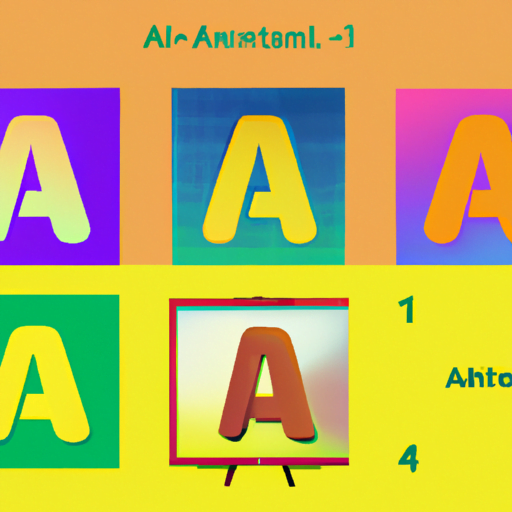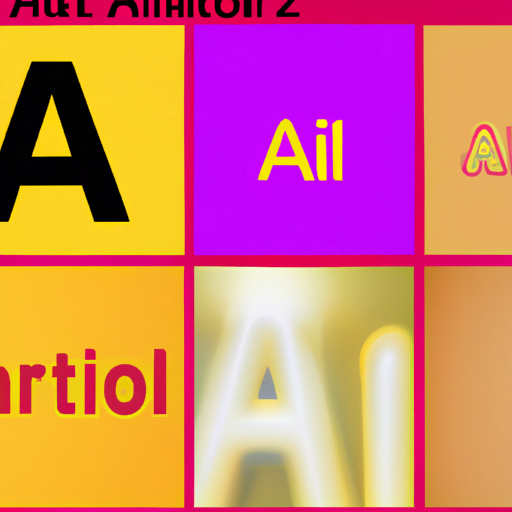
AI in Typeface Design: Custom Fonts for Unique Branding
Typography plays a crucial role in branding and design. The right typeface can evoke emotions, convey a brand's personality, and create a memorable visual identity. In recent years, artificial intelligence (AI) has revolutionized the field of typeface design, enabling designers to create custom fonts that are unique, scalable, and tailored to a brand's specific needs. This article explores the impact of AI on typeface design and how it is reshaping the way brands approach their visual identity.
The Evolution of Typeface Design
Typography has come a long way since the invention of movable type in the 15th century. From the early days of metal type to the digital revolution, typeface design has constantly evolved to meet the changing needs of communication and design. In the past, creating a custom font required extensive manual labor and expertise. Designers had to meticulously draw each letterform by hand, making the process time-consuming and expensive.
With the advent of digital tools, typeface design became more accessible, but it still required a deep understanding of design principles and technical skills. Designers used software like Adobe Illustrator or FontLab to create fonts, relying on their creativity and expertise to craft unique typefaces. However, this process was still limited by human capabilities and the time it took to manually design each character.
The Rise of AI in Typeface Design
Artificial intelligence has brought a new level of automation and efficiency to typeface design. By leveraging machine learning algorithms, AI can analyze vast amounts of data and generate custom fonts based on specific design parameters. This technology has opened up new possibilities for designers and brands, allowing them to create unique typefaces that were previously unimaginable.
One of the key advantages of AI in typeface design is its ability to generate fonts at scale. Instead of manually designing each character, designers can input a few key parameters, such as the desired style, weight, and proportions, and let the AI algorithm generate the entire font set. This not only saves time but also ensures consistency across different characters, resulting in a more cohesive and professional-looking typeface.
Case Studies: AI in Typeface Design
Several companies and designers have already embraced AI in typeface design, showcasing its potential in creating unique and impactful fonts. Let's explore some notable case studies:
1. IBM Plex
IBM Plex is a typeface designed by Mike Abbink and the IBM Brand & Experience team. The team used AI to create a versatile and cohesive font family that reflects IBM's brand values. By training the AI algorithm on a vast dataset of historical typefaces, the team was able to generate a font that combines modern aesthetics with a touch of nostalgia. The result is a typeface that feels both contemporary and timeless, perfectly aligning with IBM's brand identity.
2. Google Fonts
Google Fonts, a library of open-source fonts, has also embraced AI in its typeface design process. By using machine learning algorithms, Google Fonts can analyze popular typeface trends and user preferences to generate new fonts that are both visually appealing and highly functional. This approach allows Google Fonts to continuously expand its library with fresh and relevant typefaces, catering to the diverse needs of designers and brands worldwide.
The Benefits of AI in Typeface Design
The integration of AI in typeface design offers numerous benefits for designers and brands:
- Efficiency: AI algorithms can generate custom fonts at a much faster pace than traditional manual methods, saving designers valuable time and resources.
- Consistency: AI ensures consistency across different characters, resulting in a more harmonious and professional-looking typeface.
- Scalability: AI enables designers to create fonts at scale, making it easier to adapt and expand a typeface for different use cases and platforms.
- Innovation: AI opens up new possibilities for experimentation and innovation in typeface design, allowing designers to push the boundaries of creativity.
- Personalization: AI algorithms can generate custom fonts based on specific design parameters, enabling brands to create typefaces that align with their unique visual identity.
The Future of AI in Typeface Design
As AI continues to advance, we can expect even more exciting developments in typeface design. Here are some potential future trends:
- Generative Adversarial Networks (GANs): GANs, a type of AI algorithm, could be used to create typefaces that combine the best elements of multiple existing fonts, resulting in truly unique and innovative designs.
- Emotion-driven Typography: AI could be used to analyze and interpret emotions, allowing designers to create typefaces that evoke specific feelings or moods.
Conclusion
AI has revolutionized the field of typeface design, empowering designers and brands to create custom fonts that are unique, scalable, and tailored to their specific needs. By leveraging machine learning algorithms, AI can generate fonts at scale, ensuring consistency and efficiency. Case studies like IBM Plex and Google Fonts demonstrate the potential of AI in creating impactful and memorable typefaces. As AI continues to advance, we can expect even more exciting developments in typeface design, pushing the boundaries of creativity and personalization.